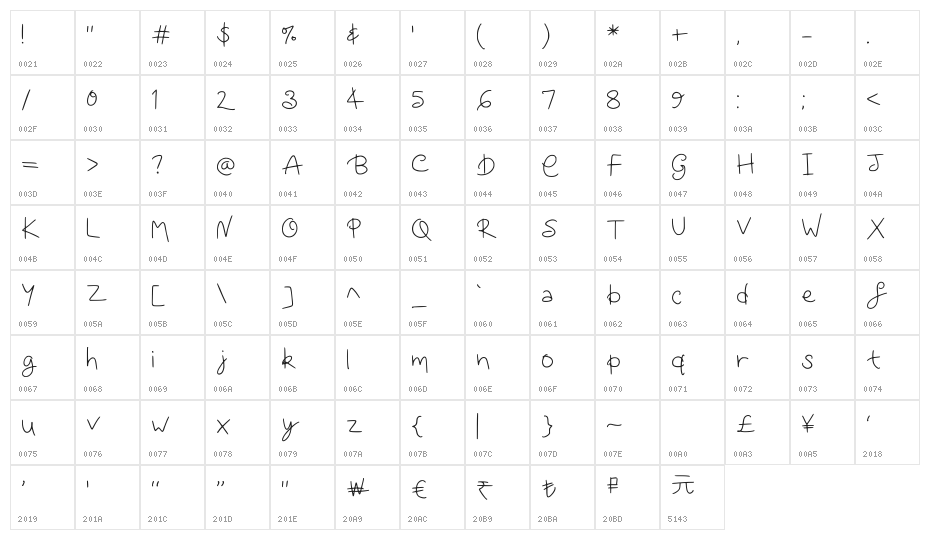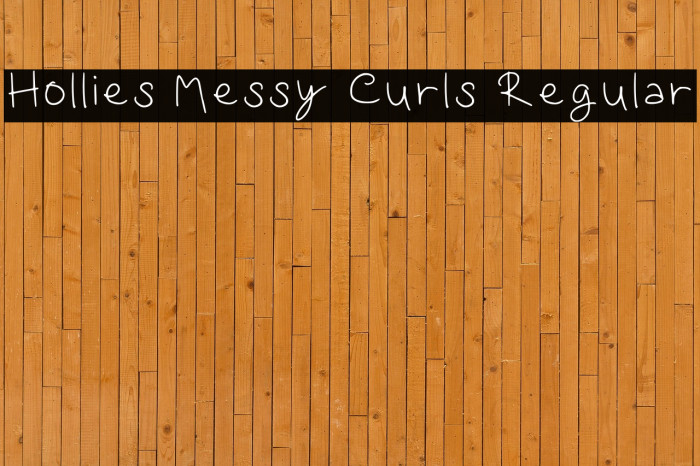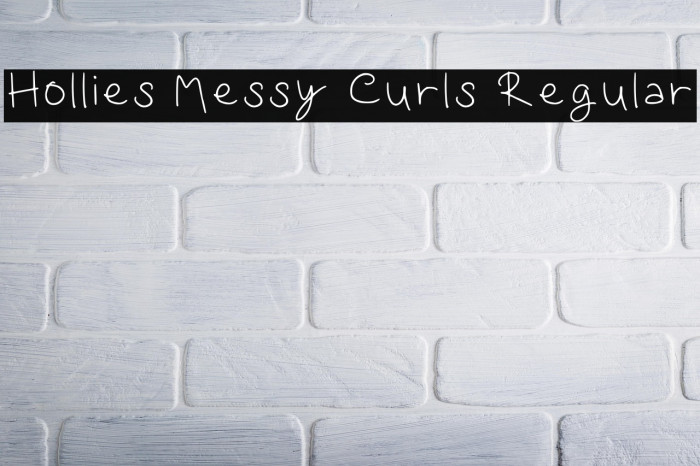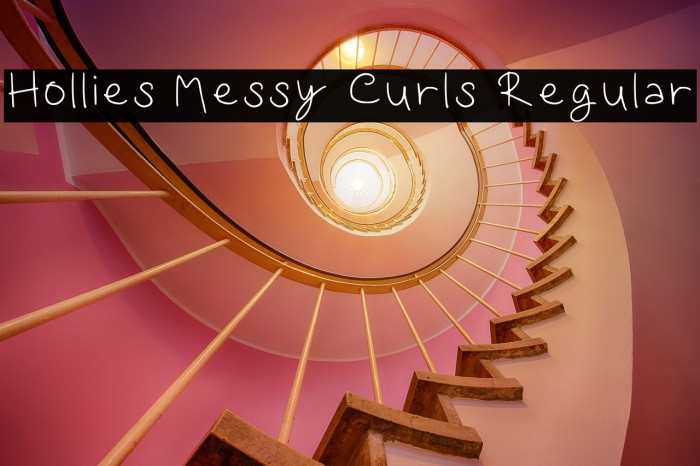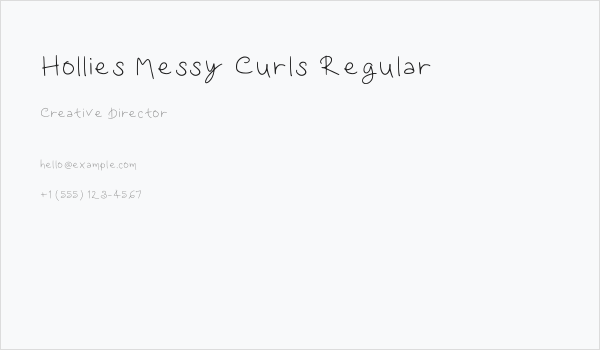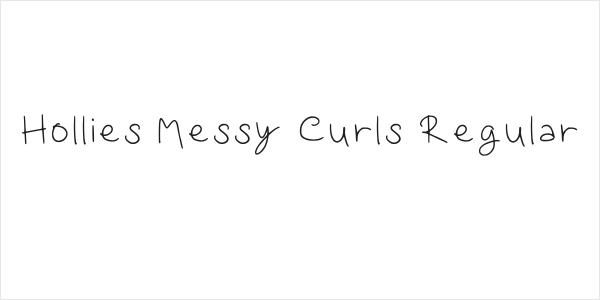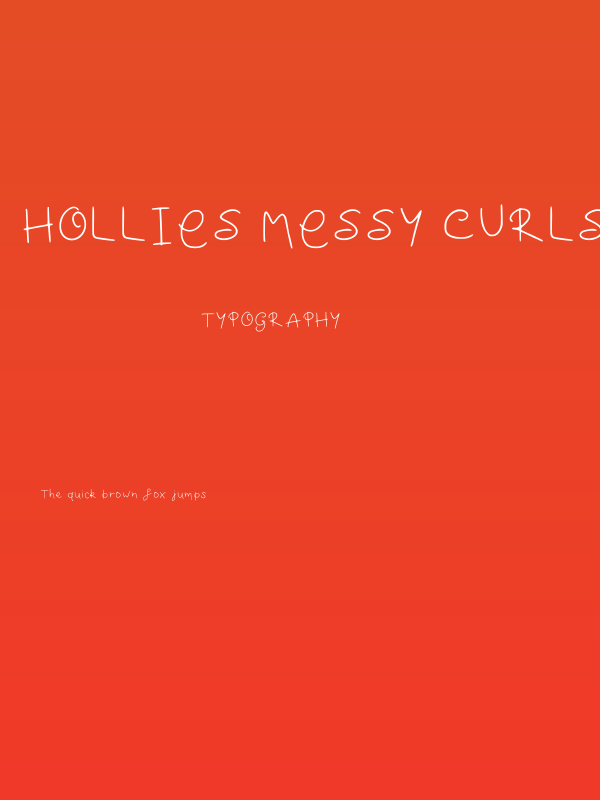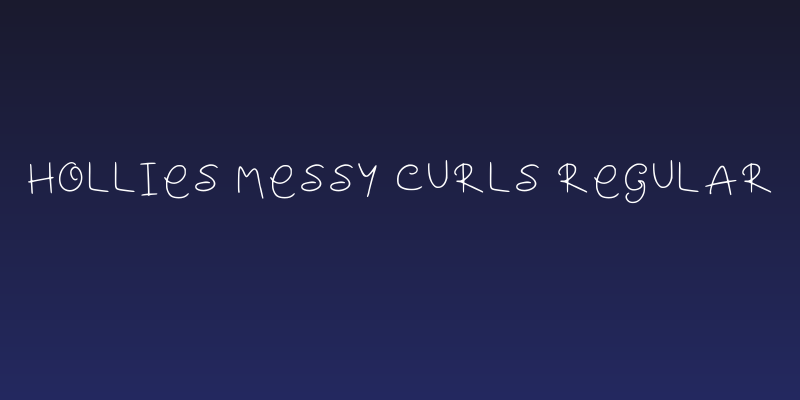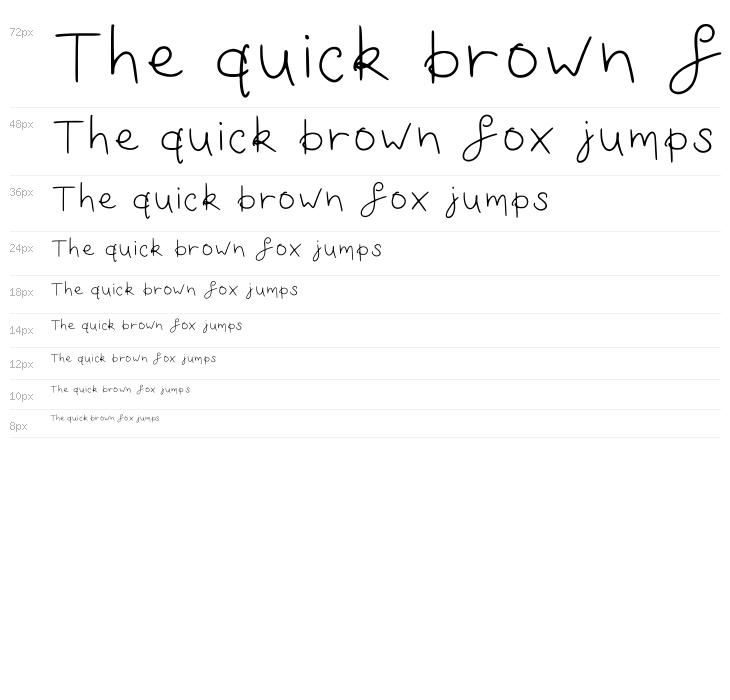
Hollies Messy Curls Regular Font
Hollies Messy Curls Regular Description
This font features a playful and casual handwritten style, characterized by its loose, curly strokes and informal appearance. The letters are slightly uneven, adding to the whimsical and relaxed feel. The uppercase and lowercase letters maintain a consistent flow, with rounded edges and a sense of movement. The numerals and special characters follow the same playful design, making the font suitable for projects that require a personal touch. The overall look is approachable and friendly, perfect for conveying a sense of warmth and creativity.
| Proposed Projects | Ideal for greeting cards, invitations, personal branding, and creative projects that require a warm, informal touch. |